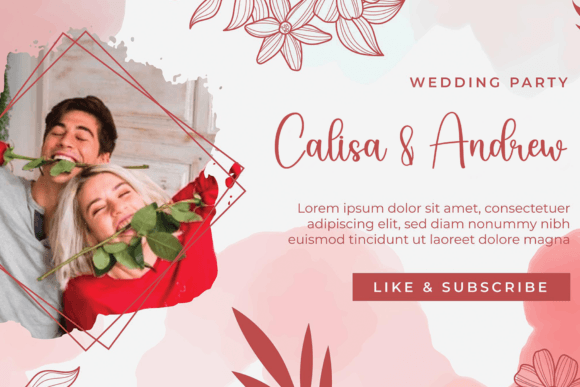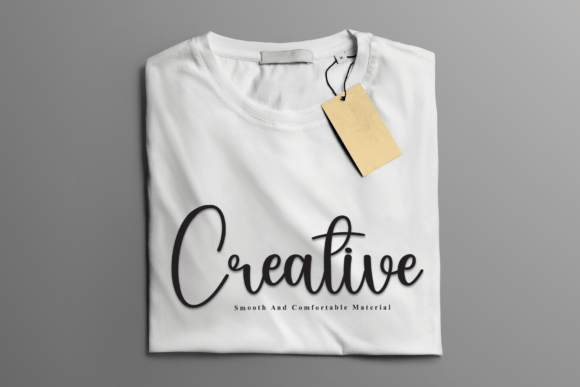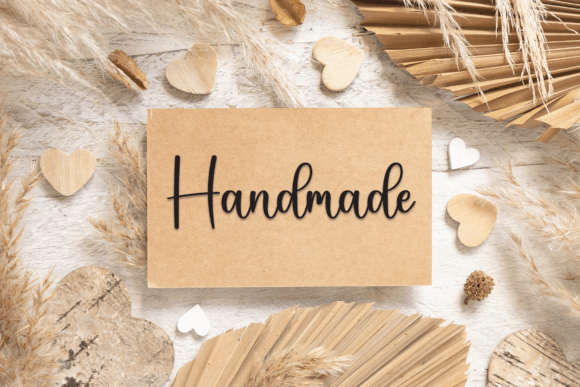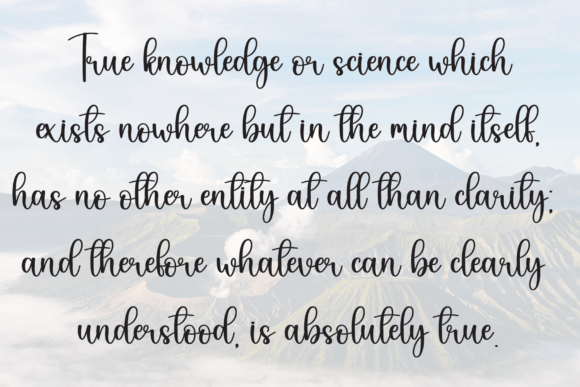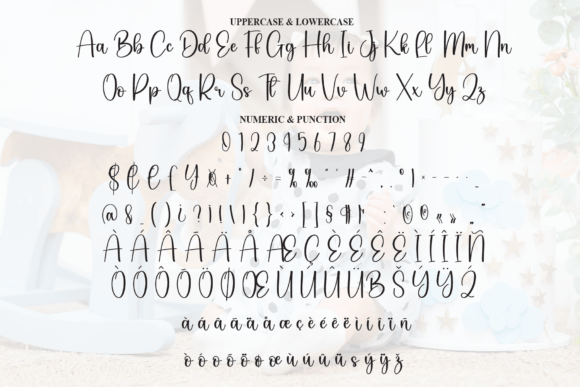
Babyday Font: Elevate Your Designs with Elegance and Charm
In the world of typography, few fonts capture the essence of elegance and charm as beautifully as the Babyday Font. This stunning script font, characterized by its smooth, flowing curves and classic calligraphy style, is perfect for adding a touch of sophistication to various design projects. Whether you’re creating cards, gift tags, invitations, or seasonal decorations, Babyday Font is sure to bring warmth and joy to your creations.
The Beauty of Babyday Font
Babyday Font boasts a classic calligraphy style that exudes refinement and poise. Its smooth, flowing curves create a sense of movement and fluidity, making it perfect for designs that require a touch of elegance. The font’s graceful letterforms are meticulously crafted to provide a beautiful, hand-written feel that is sure to capture the attention of your audience.
Babyday Font is an incredibly versatile font that can be used in a wide range of creative projects. Here are some ideas to get you started:
- Cards: Add a personal touch to your greeting cards, birthday cards, and holiday cards with Babyday Font.
- Gift Tags: Create beautiful gift tags that exude elegance and sophistication.
- Invitations: Make your invitations stand out with the beautiful, flowing curves of Babyday Font.
- Seasonal Decorations: Bring warmth and joy to your seasonal decorations, such as Christmas, Halloween, or Easter projects.
Pairing Babyday Font with Winter-Themed Elements
One of the standout features of Babyday Font is its ability to pair beautifully with winter-themed elements. The font’s classic calligraphy style and smooth curves create a sense of warmth and coziness, making it perfect for winter-themed designs. Imagine creating a beautiful Christmas card with Babyday Font and pairing it with snowflakes, holly, or other winter elements. The result is a design that exudes warmth, joy, and sophistication.
Why Designers and Crafters Love Babyday Font
Designers and crafters alike love Babyday Font for its versatility, elegance, and charm. Here are some reasons why:
- Elegance: Babyday Font adds a touch of elegance and sophistication to any design project.
- Versatility: The font can be used in a wide range of creative projects, from cards and gift tags to invitations and seasonal decorations.
- Easy to Read: Despite its elegant and cursive nature, Babyday Font is easy to read, making it perfect for designs that require a personal touch.
Tips for Using Babyday Font
Here are some tips for getting the most out of Babyday Font:
- Experiment with Colors: Pair Babyday Font with a range of colors to create unique and eye-catching designs.
- Mix and Match: Combine Babyday Font with other fonts and design elements to create visually appealing designs.
- Pay Attention to Spacing: Make sure to adjust the spacing between letters and words to create a beautiful, flowing effect.
In conclusion, Babyday Font is a beautiful script font that is perfect for designers and crafters looking to add a touch of elegance and charm to their creative projects. With its smooth, flowing curves and classic calligraphy style, this font is sure to bring warmth and joy to your designs. Whether you’re creating cards, gift tags, invitations, or seasonal decorations, Babyday Font is a versatile and elegant choice that is sure to impress.